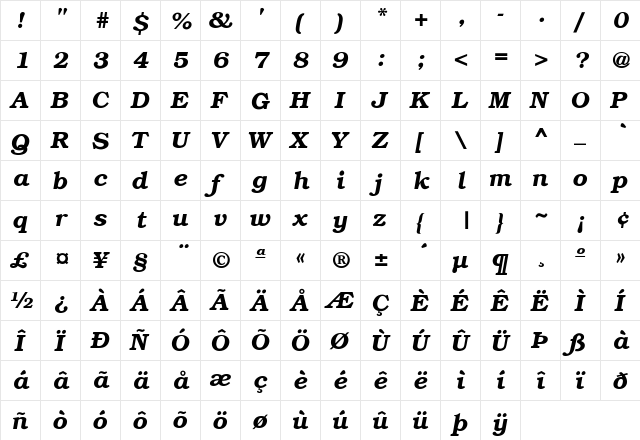
EdgeWater Regular Italic Regular
EdgeWater Regular Italic takes a measured approach to typography — its balanced proportions and neutral character make it a reliable workhorse for both digital and print work. Its italic angle brings a sense of urgency and motion to the letterforms.